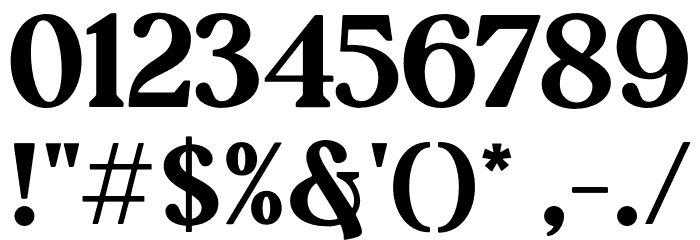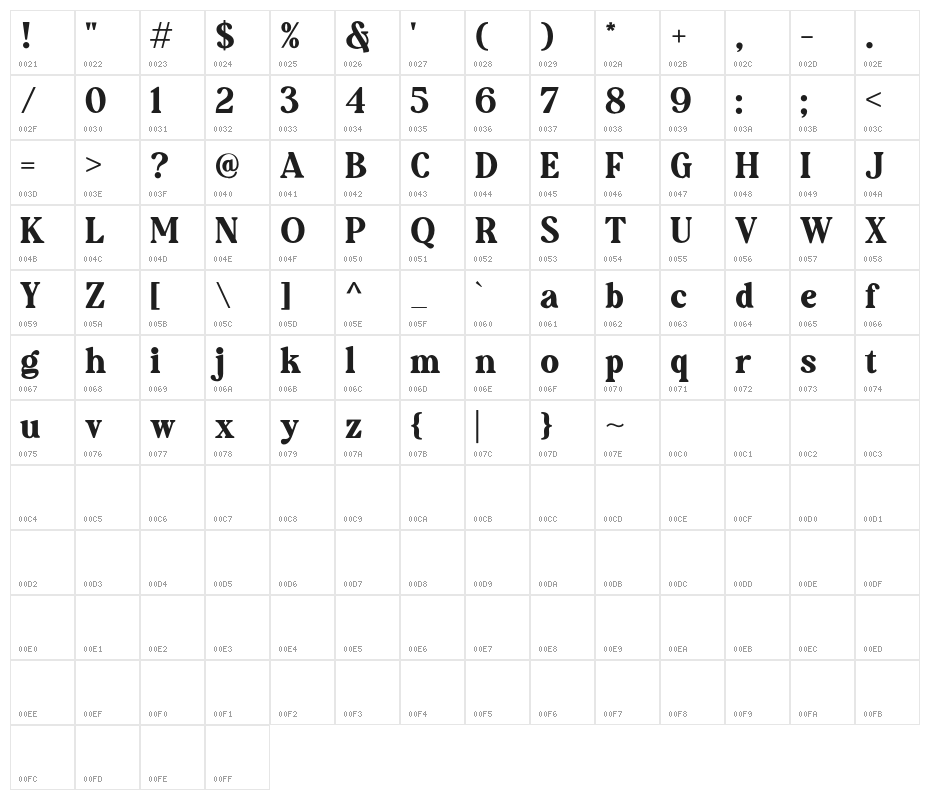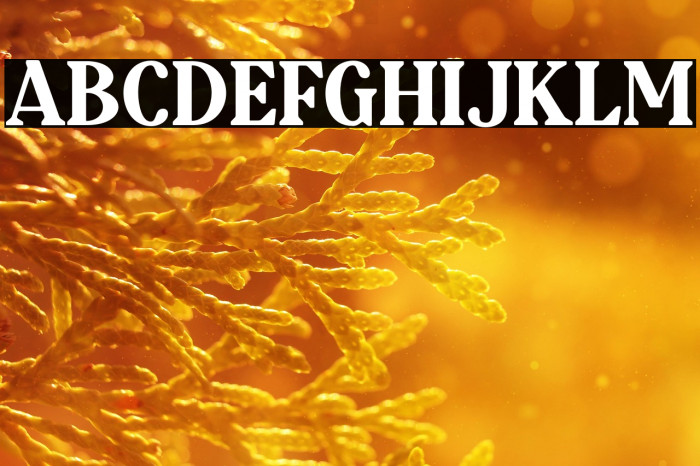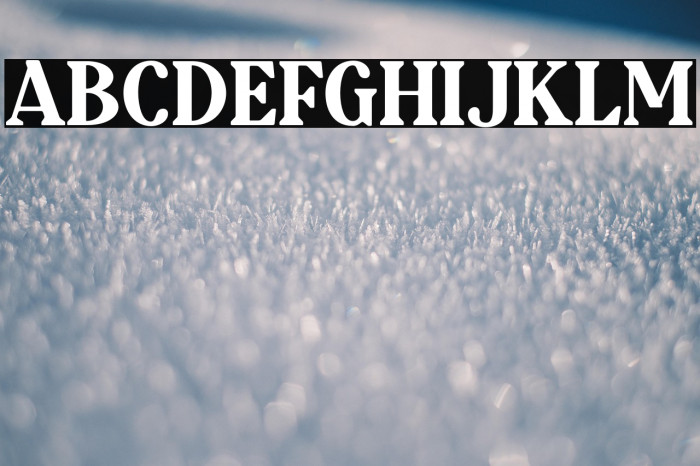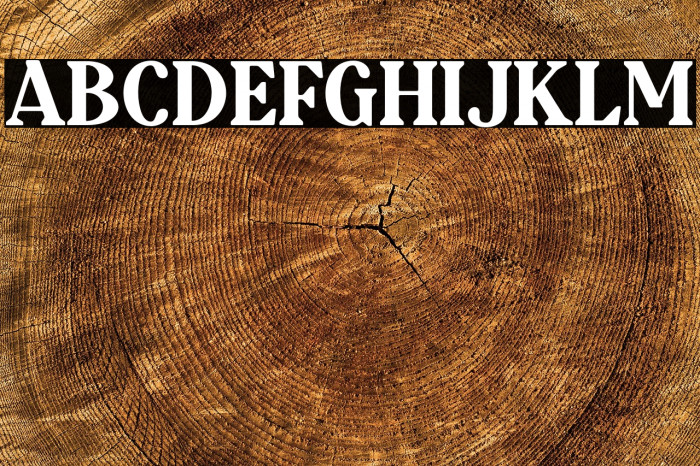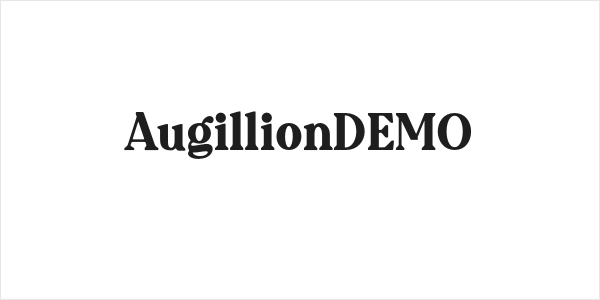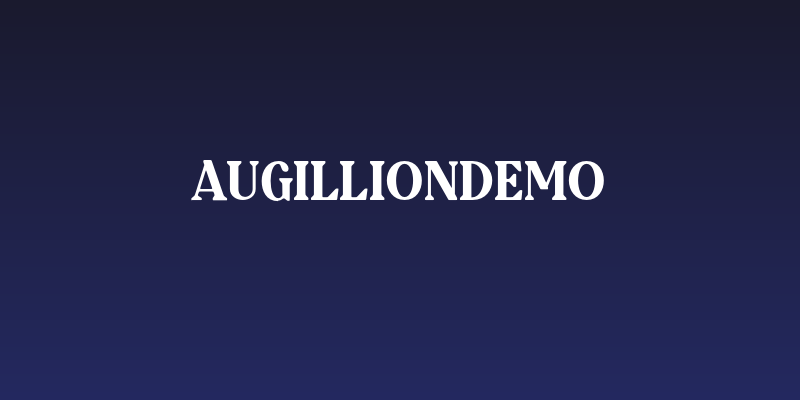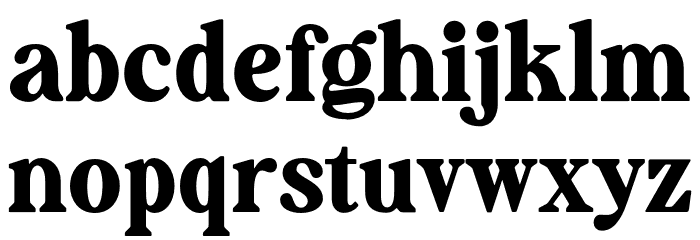
AugillionDEMO Font
AugillionDEMO Description
This font features a bold and commanding presence with its strong serif design. The characters exhibit a classic and timeless appeal, with thick strokes and pronounced serifs that add a touch of elegance and authority. The uppercase letters are robust and well-defined, while the lowercase letters maintain a harmonious balance with slightly rounded edges. The numerals are clear and bold, ensuring readability. Special characters are crafted with attention to detail, enhancing the font's versatility. Overall, this font is ideal for making a statement in any design project.
| Use Case | Headlines, Logos, Editorial design |
| Proposed Projects | Ideal for book covers, headlines, branding, and editorial design. |